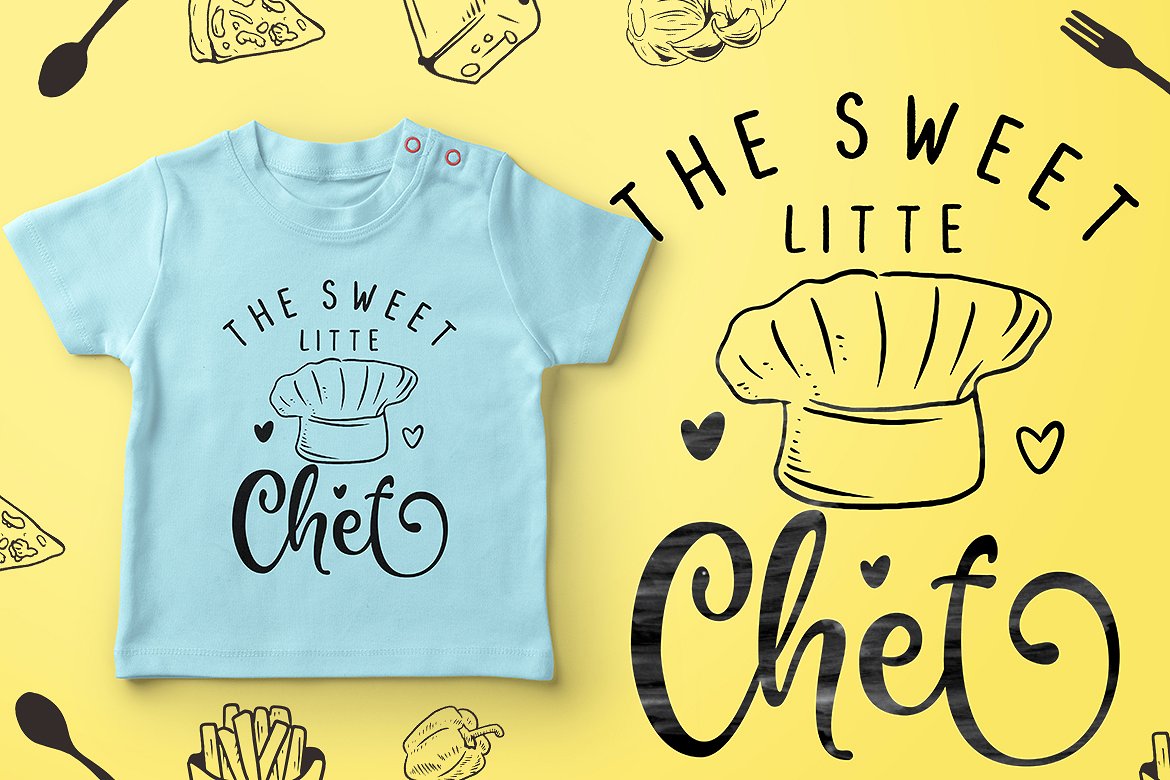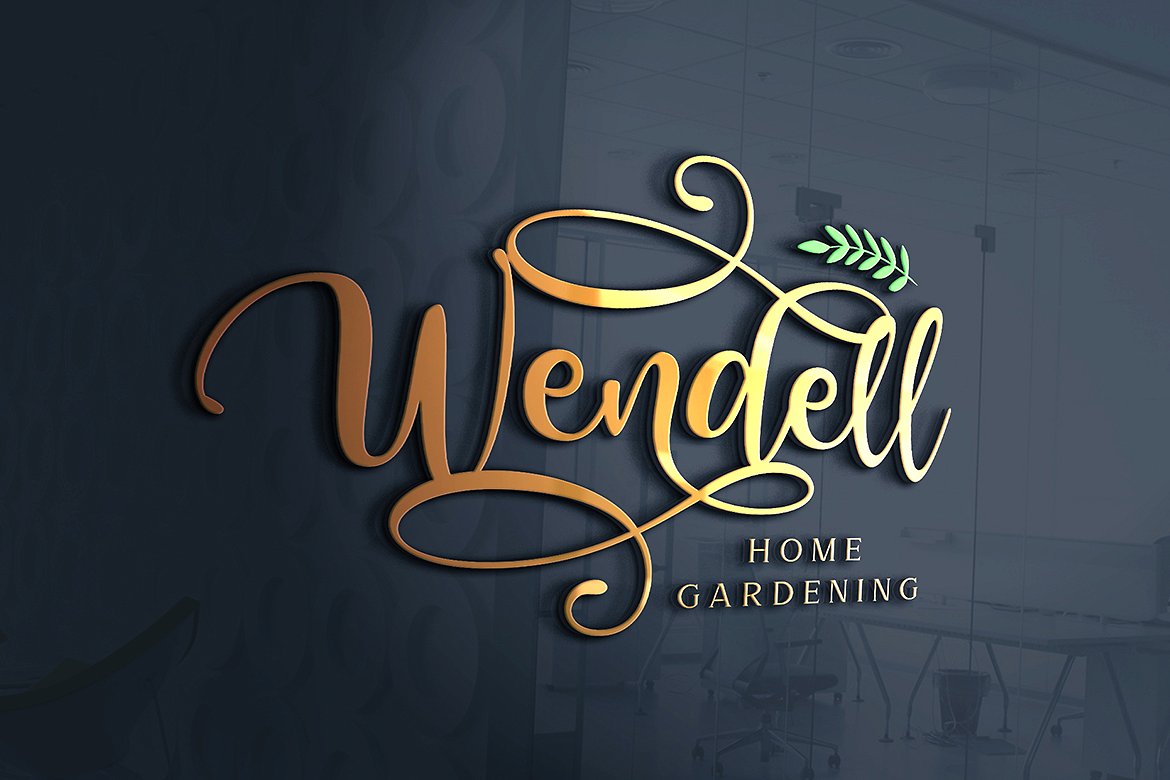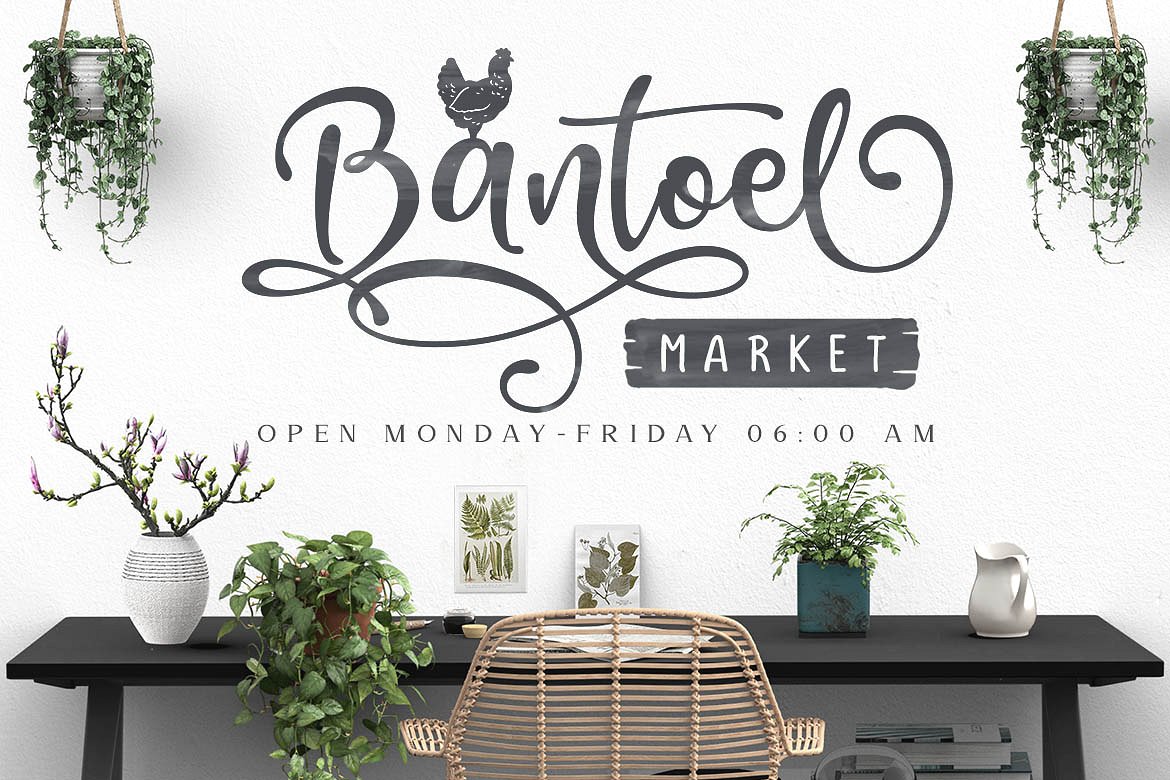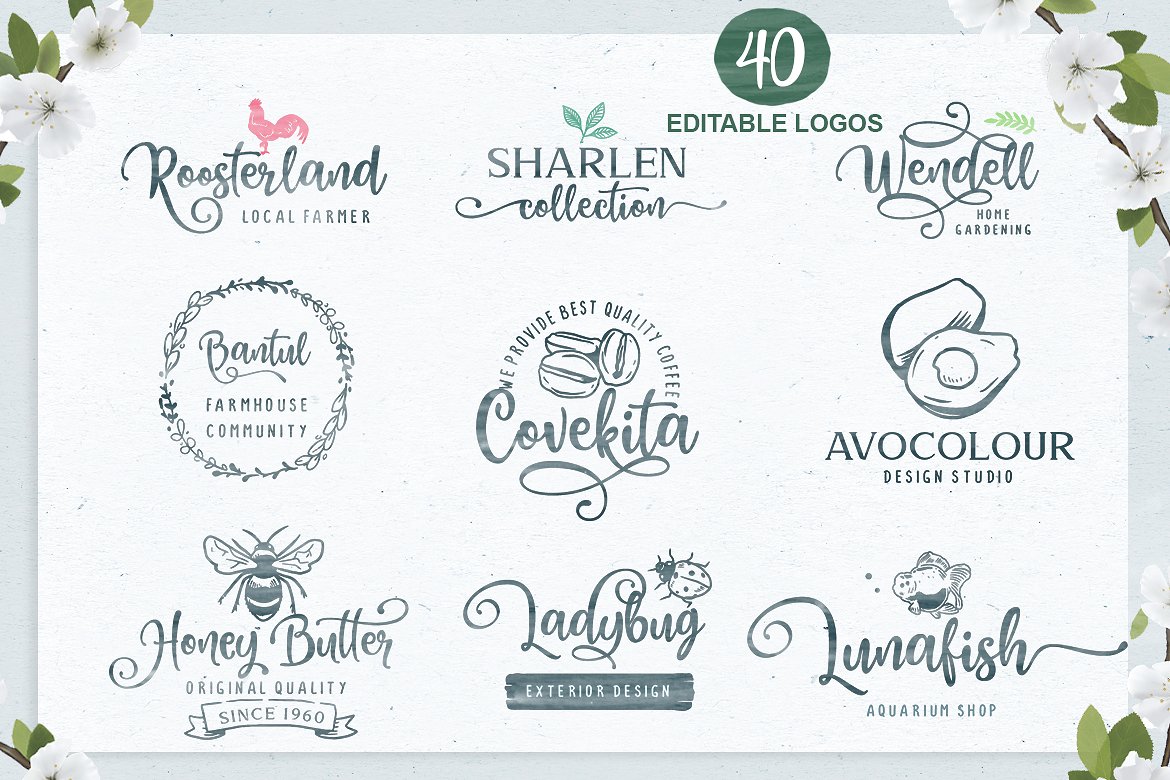
Honey Butter Script Font
Say hello to Honey Butter! A lovely font trio & extras. It is was designed and shared by Lettersiro. Honey Butter comes with Honey Butter script (Clean & Rough) that contain more than 600 alternate character, Honey Butter sans (Clean & Rough), and Honey Butter serif (Clean & Rough). Honey Butter is really great font for logo, blog/web headline, clothing, invitation, poster, cafe/resto sign, and many others.